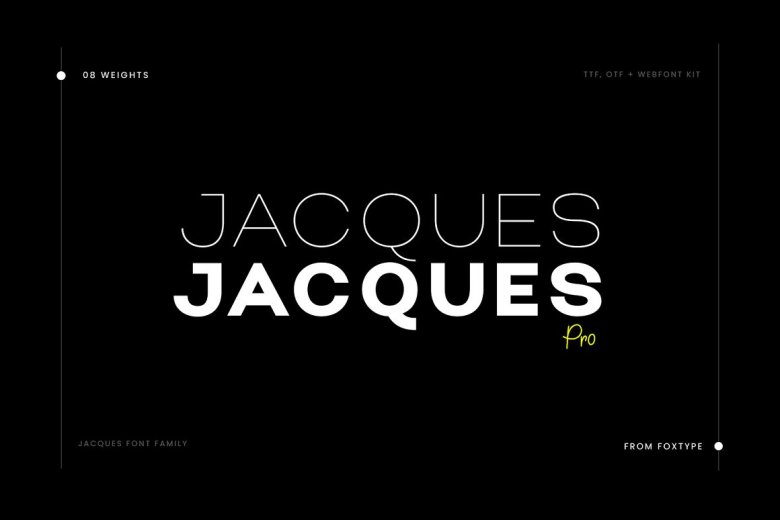
Jacques Pro Font
Jacques Pro is crafted with that otherworldly, geometric je-ne-sais-quoi, streamlined craftsmanship of early 20th Century modernism. It is approachable but not soft, designed with strong letterforms and contemporary characteristics. You might say it looks great for logos or in a magazine. Or on television. Mackenzie Font Family suitable for branding, headlines, captions, paragraphs and posters.
This variety in weight means that you can play around with a large number of different uses. Created to be impressed without losing that beauty and readability. It’s clean, minimalist, warmth-y and quirky; yet still purposed to be versatile This Typeface consists of Eight Weights: Thin, Extra Light, Light, Regular, Medium, Semi Bold, Bold and Extra Bold.
Jacques Pro Sans Serif Font